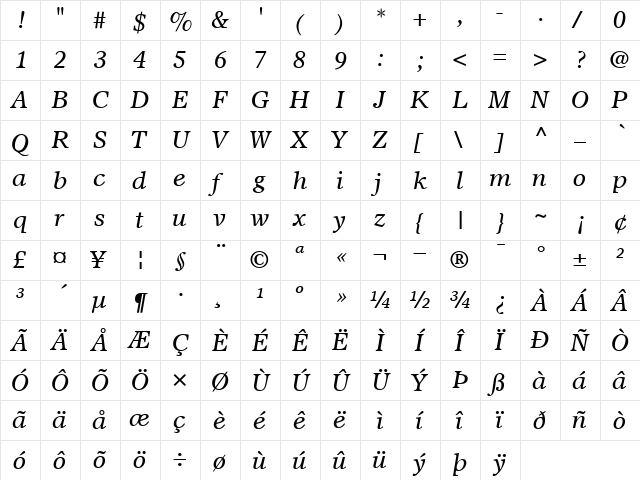
Olympian RomanItalic
Design Context for Olympian Typeface
Olympian offers clean, dependable letterforms without strong stylistic allegiance, making it a practical choice for designers who need flexibility. The slanted form adds forward momentum and visual energy.
Pro Tip: Try Olympian for annotation and caption copy alongside an upright companion — the contrast in angle creates a dynamic but ordered typographic system.